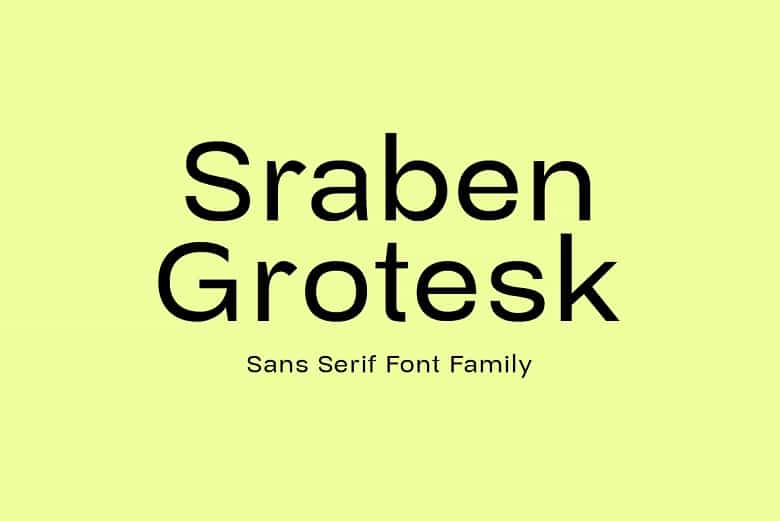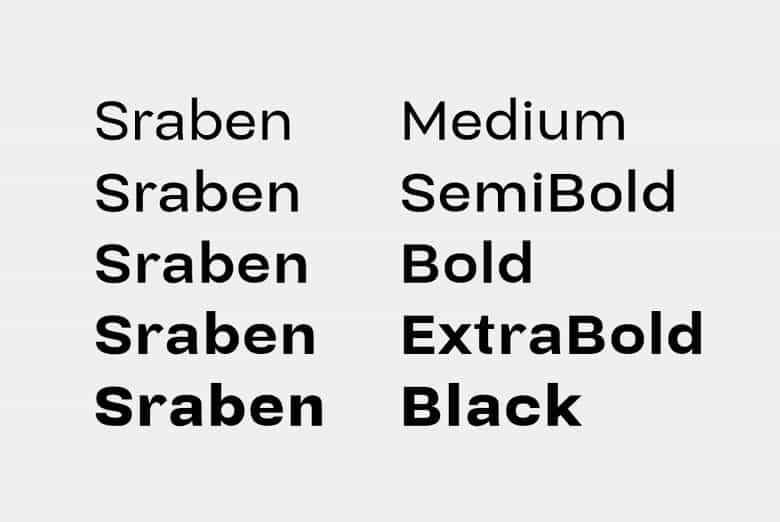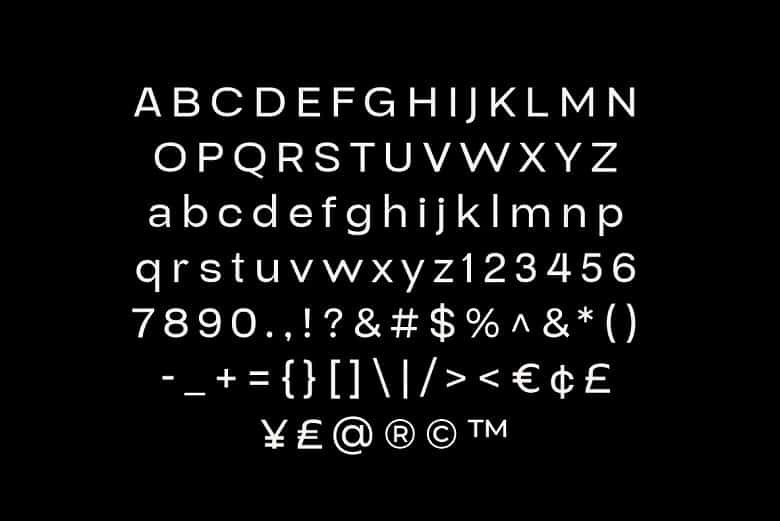
Sraben Grotesk is a beautiful font family and is quite versatile, so you can use it for practically any kind of project! It has many proportional sections with some parts being slightly more emphasized than the others. This font has the features of Grotesk typography and thus suitable for use in posters, flyers, brochures, logos, and magazine layouts.